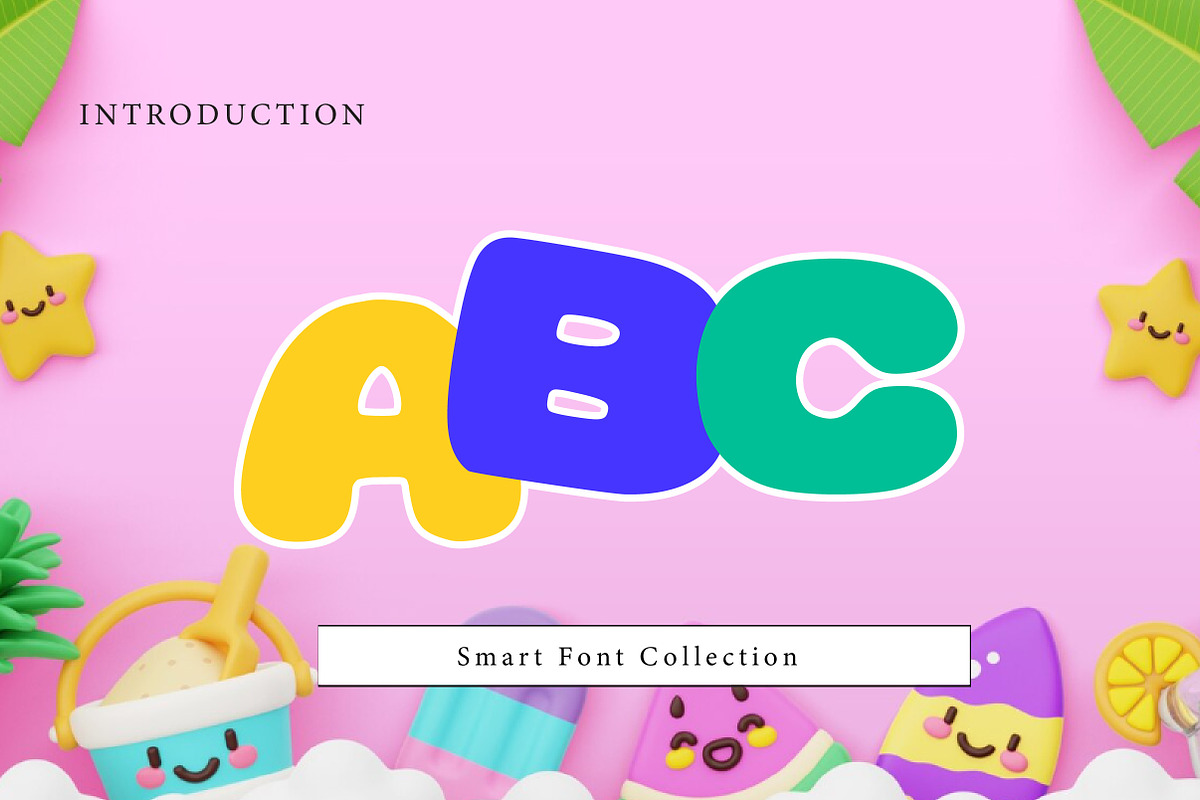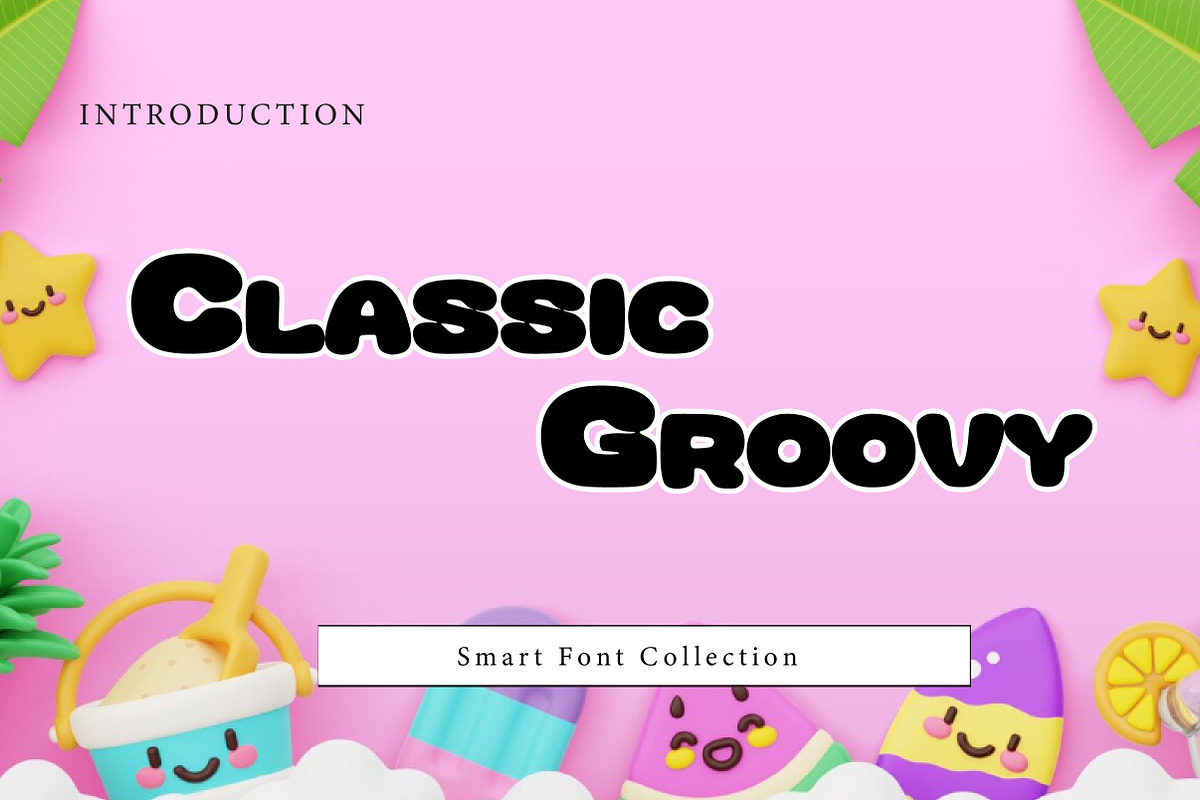
Classic Groovy
Classic Groovy is a bold and funky retro display font inspired by classic 70s groovy typography. Featuring chunky rounded letterforms, smooth curves, and a playful vintage vibe, this font is perfect for posters, logos, packaging, t-shirts, stickers, album covers, social media graphics, and retro branding projects. Classic Groovy brings cheerful nostalgia and timeless retro style, making it ideal for eye-catching headlines and creative typography designs.